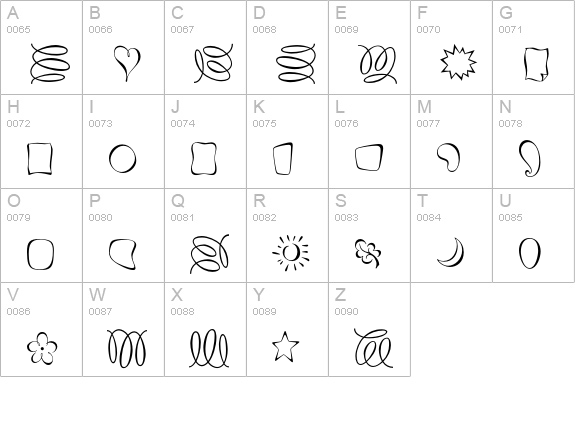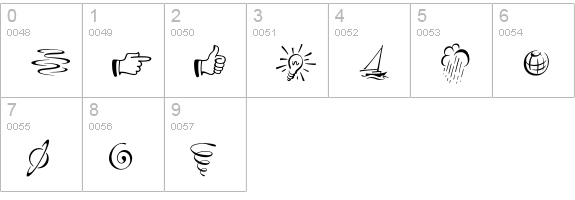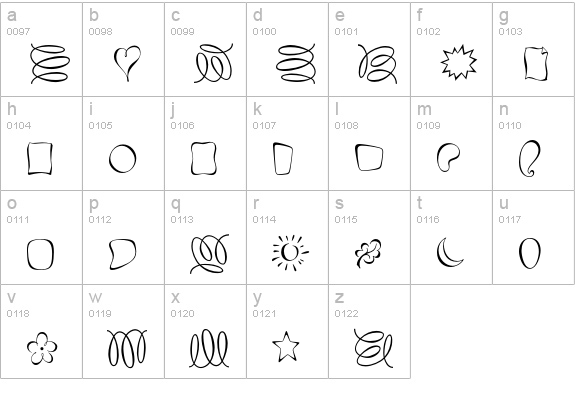
Fontesque-Ornaments font is a stunning display typeface that exudes elegance and sophistication. With its intricate details and ornate design, this font is perfect for adding a touch of luxury to any project. The delicate swirls and flourishes of Fontesque-Ornaments font make it ideal for creating eye-catching headings, invitations, and decorative elements. What sets Fontesque-Ornaments font apart is that it is not only visually captivating but also completely free to use. That's right, you can download this beautiful font for free at FontsMarket.com. Whether you're working on a personal project or a professional design, Fontesque-Ornaments font will add a touch of class and charm to your work. Don't miss out on the opportunity to enhance your designs with this exquisite font, available for free download now!